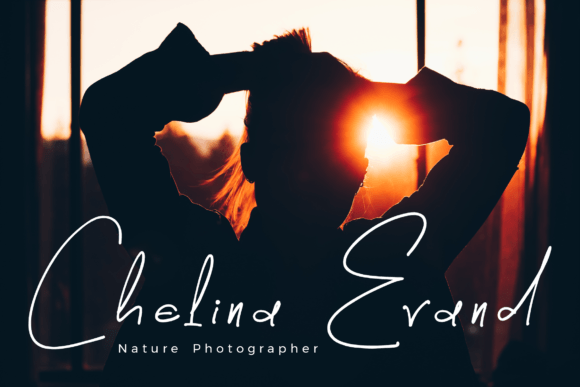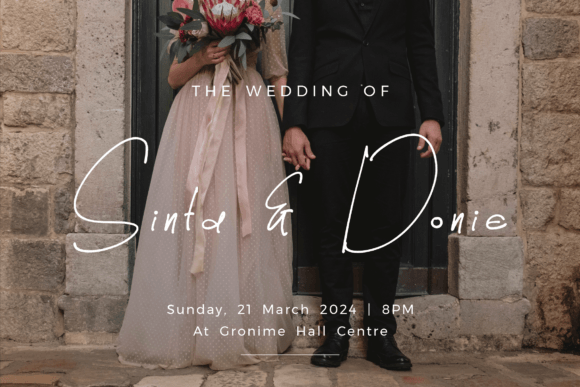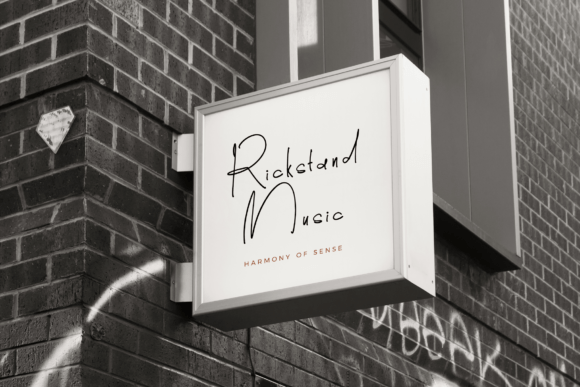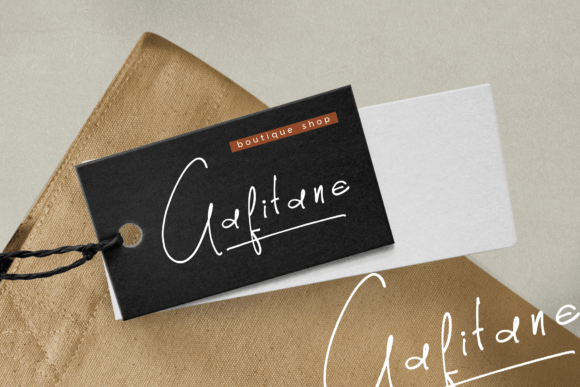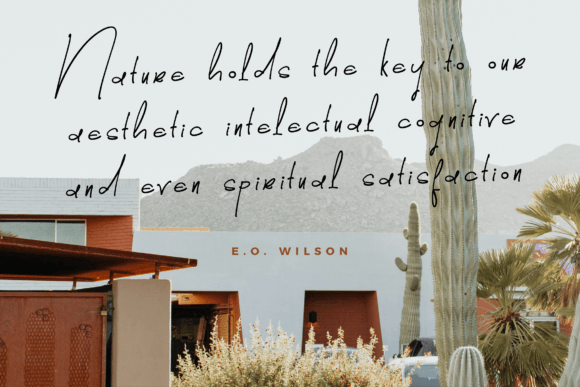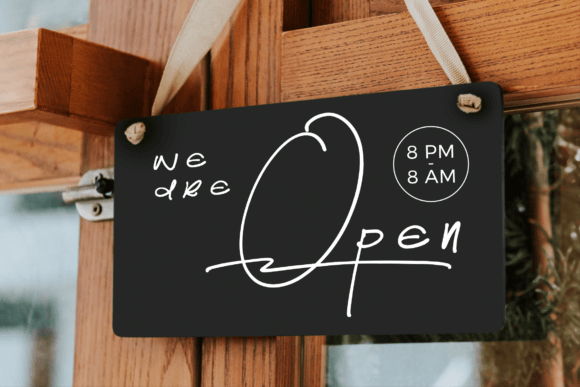
Unleash the Whimsy: Discover the Bitterslide Evelwhite Font
Have you ever found yourself scribbling down a quote in a coffee shop, only to realize that the handwriting on the napkin is exactly the vibe you’re going for? That’s the magic of a beautiful script font – it can evoke emotions and transport us to a world of creativity. For designers, the quest for the perfect font can be a daunting task, but we’re excited to introduce you to the Bitterslide Evelwhite Font, a stunning ballpoint display from Perspectype Studio.
This gorgeous font is designed to elevate your projects, from logos and branding to homeware designs, product packaging, and beyond. Its unique charm makes it an invaluable asset for designers, allowing them to add a touch of whimsy and personality to their work. With the Bitterslide Evelwhite Font, you’ll be able to bring your ideas to life in a way that’s both elegant and approachable.
Bitterslide Evelwhite Font Key Features
- Unique Characteristics: Distinctive, elegant script with a mix of modern and vintage flair, suitable for creative and luxury brands
Bitterslide Evelwhite Font Review
I recently had the chance to work with the Bitterslide Evelwhite font, and I must say it’s a unique and intriguing addition to any design project. Here’s my honest take on what works and what doesn’t.
- Beautiful, handcrafted feel: The Bitterslide Evelwhite font has a distinct, artisanal quality that’s perfect for adding a touch of elegance to your designs.
- Excellent for headings: The font’s bold, yet refined lines make it an excellent choice for headings and titles, drawing the viewer’s attention without overpowering the rest of the text.
- Highly customizable: The font’s subtle nuances allow for a wide range of customizations, making it a great choice for designers who want to add a personal touch to their work.
- Limited legibility: While the font looks stunning in headings, it can be challenging to read in body text, particularly at smaller font sizes.
- Lack of consistency: The font’s irregularities can make it difficult to maintain a consistent look throughout a design project.
The Bitterslide Evelwhite font is a great choice for designers who want to add a touch of sophistication and elegance to their work. While it may not be suitable for every project, it’s definitely worth considering for headings, titles, and other high-impact design elements. With a little patience and experimentation, you can unlock the font’s full potential and create stunning designs that leave a lasting impression.
Getting the Most Out of Bitterslide Evelwhite
To get the most out of the Bitterslide Evelwhite font, try the following tips:
- Use it for headings and titles to add a touch of elegance.
- Pair it with a clean sans-serif font for body text.
The Bitterslide Evelwhite font is perfect for:
- Luxury branding and packaging.
- High-end marketing materials and advertising.
Comparison to Bitterslide Evelwhite Font: Great Vibes Font has a more casual and playful feel compared to the elegant and sophisticated Bitterslide Evelwhite Font. Great Vibes is ideal for creating a laid-back vibe, while Bitterslide Evelwhite is better suited for formal or luxury designs.
The Pacifico Font is a beautiful and elegant script font that’s perfect for creating a sense of sophistication and luxury. It works well for titles, headings, and short paragraphs.
Comparison to Bitterslide Evelwhite Font: Pacifico Font has a similar elegant feel to Bitterslide Evelwhite Font, but with a more relaxed and beachy vibe. Pacifico is ideal for designs that require a touch of elegance and sophistication, while Bitterslide Evelwhite is better suited for formal or high-end designs.